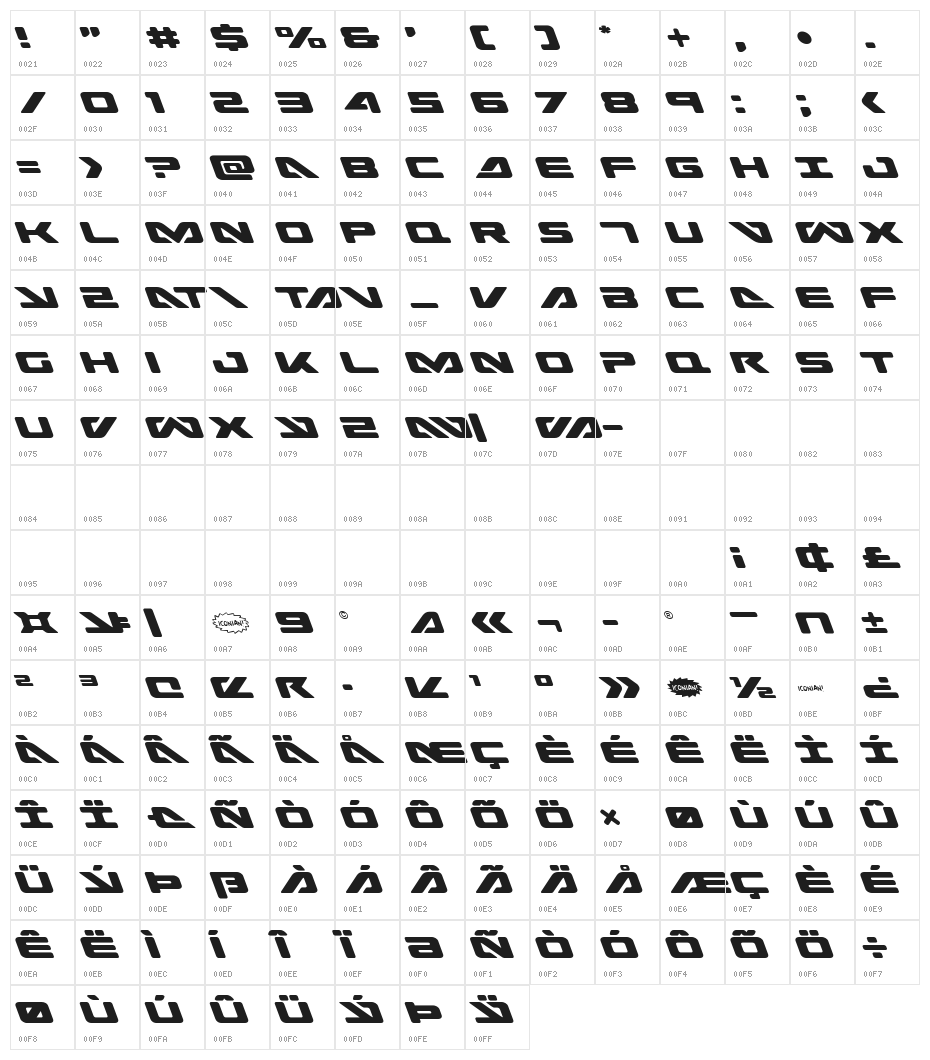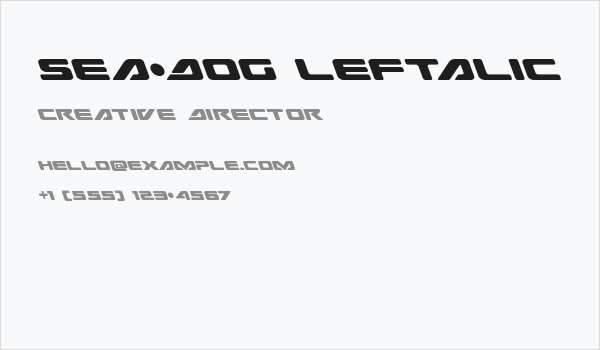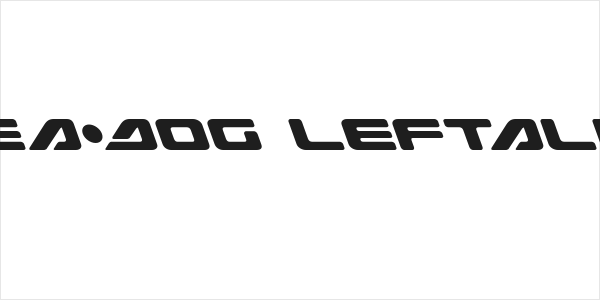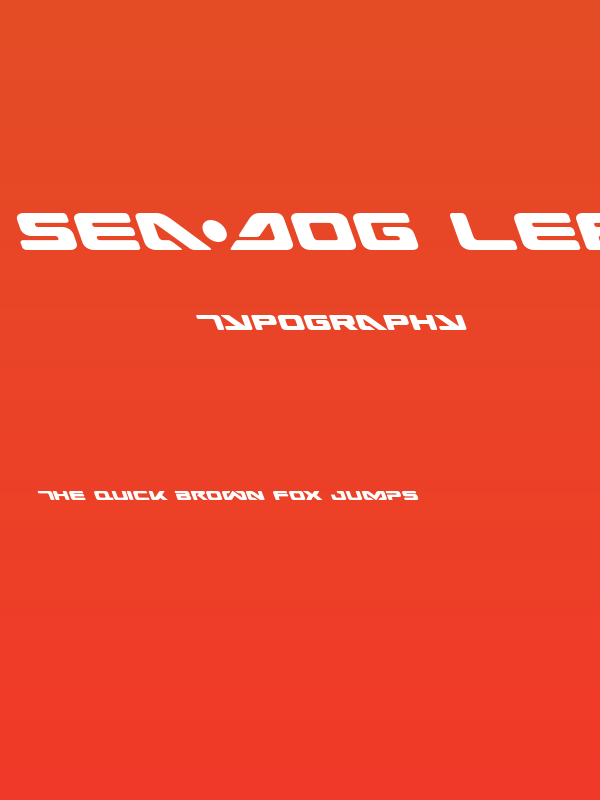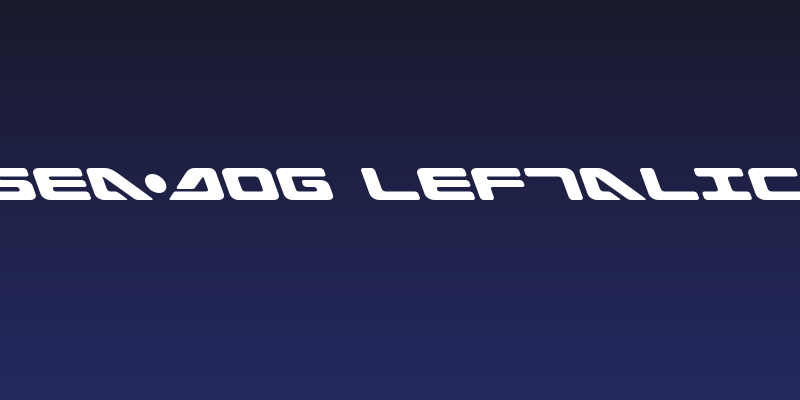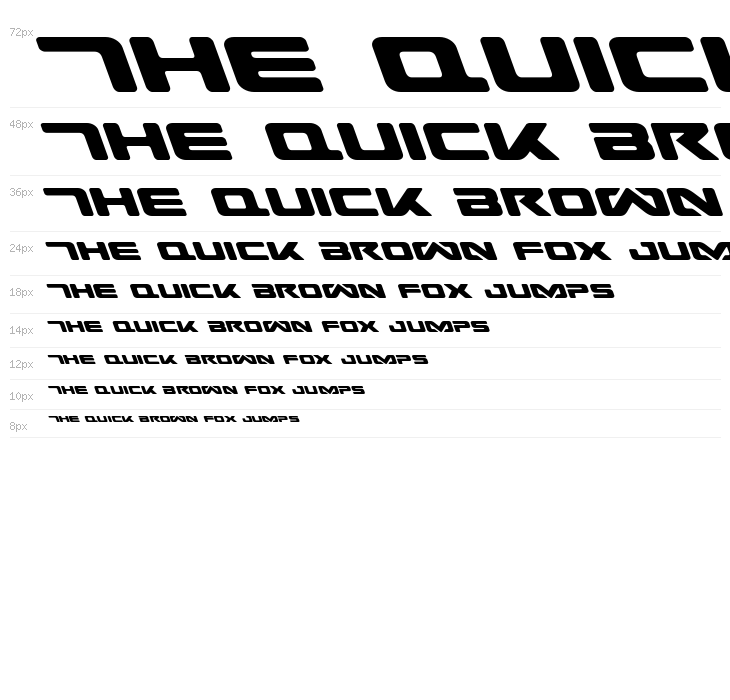
Sea-Dog Leftalic Font
Sea-Dog Leftalic Description
This font features a bold, futuristic design with angular and geometric shapes. The characters are slightly italicized, giving a sense of motion and dynamism. The uppercase and lowercase letters maintain a consistent style, with sharp edges and a uniform thickness throughout. The numbers and special characters follow the same design principles, ensuring a cohesive look across all glyphs. The font's unique style makes it stand out, ideal for projects that require a modern and edgy appearance.
Proposed ProjectsIdeal for sci-fi themed designs, video game graphics, technology branding, and modern advertising.